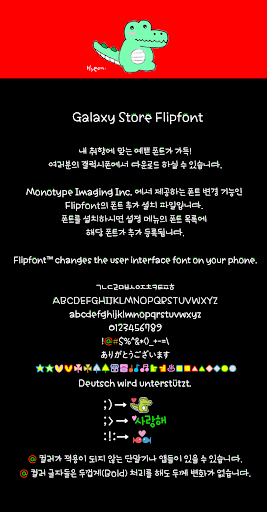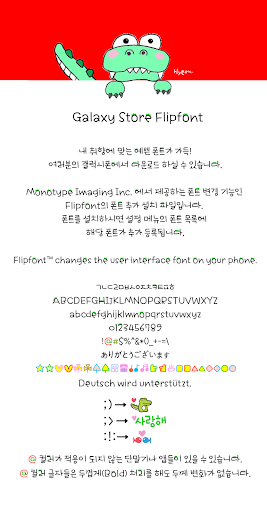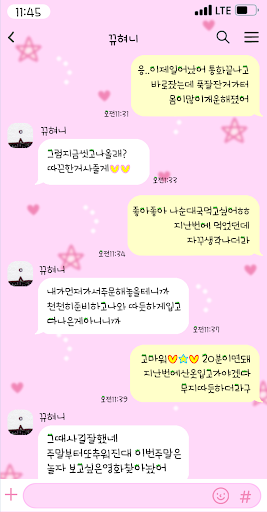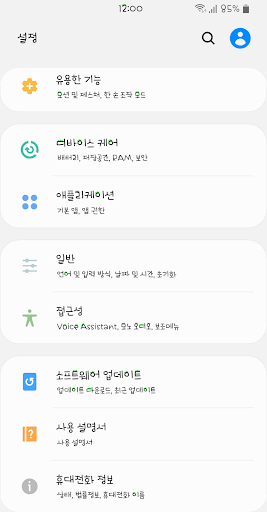
GFCrocodile
It is a font made with the motif of a crocodile, a character with a strong personality. Overall, it brings an elongated image of an alligator and has a flat feeling. The transformation into a cute character is well expressed in every corner of the font in a cute and lively way. Some letters are added with the horn of an alligator to create a fun and unique edition."(Color dingbet may not be supported depending on Android OS or app.)